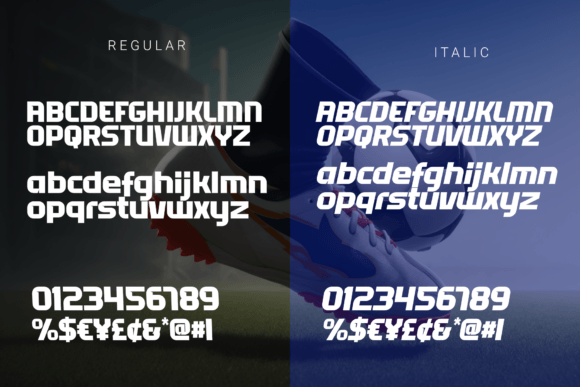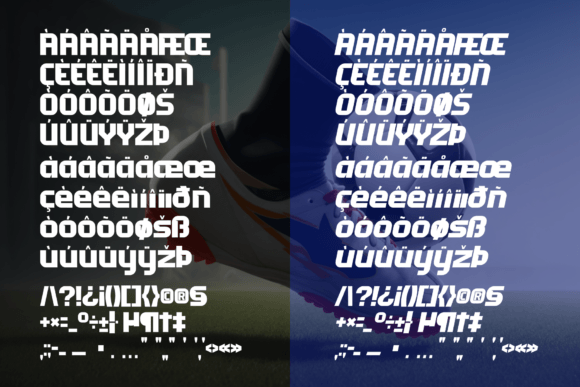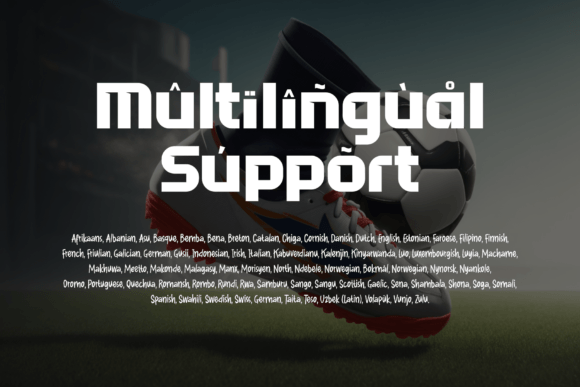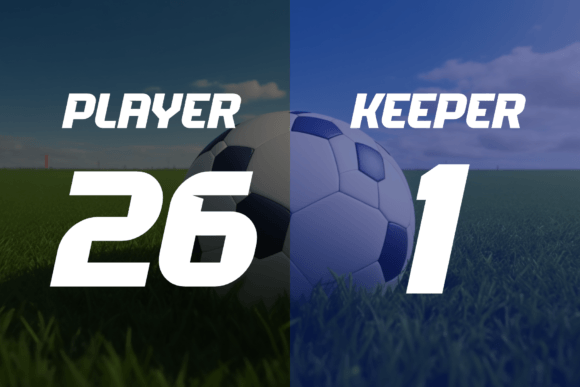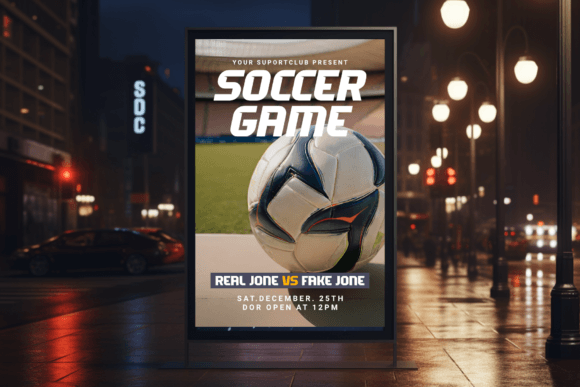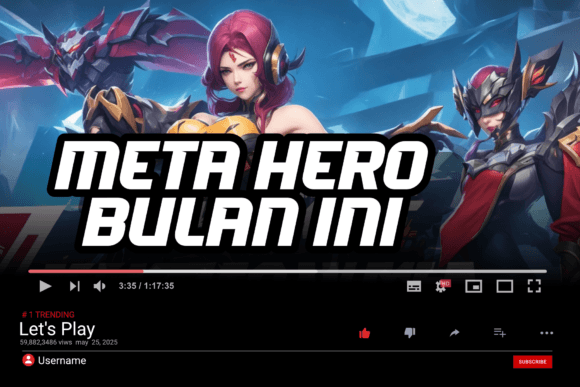
Unleash the Power of AMJ Industries Font: Elevate Your Sports Designs
In the world of design, fonts play a crucial role in conveying the message and tone of a project. When it comes to sports-related designs, a font that exudes energy, strength, and dynamism is essential. This is where AMJ Industries Font comes into play – a specifically designed font that embodies the spirit of competition and athleticism. In this article, we’ll dive into the features, benefits, and uses of AMJ Industries Font, and explore how it can elevate your sports design projects.
Introducing AMJ Industries Font
AMJ Industries Font is a modern, dynamic font designed to make a bold statement in the world of sports. Its strong characteristics, sharp lines, and aggressive typographic style make it an ideal choice for sports-related designs. The font features large standout letters and bold lines that signify strength and ruggedness, perfect for creating a powerful and captivating message in your designs.
Key Features of AMJ Industries Font
- Dynamic and Energetic: AMJ Industries Font is designed to create a dynamic and energetic impression, making it perfect for sports-related designs.
- Strong Characteristics: The font features strong characteristics, sharp lines, and a modern design that makes it stand out.
- Aggressive and Masculine: AMJ Industries Font has an aggressive and masculine typographic style, with large standout letters and bold lines that signify strength and ruggedness.
- Flexibility and Creativity: The font offers flexibility and creativity in its use, allowing you to bring a unique and distinctive touch to every sports design project.
Perfect for Sports-Related Projects
AMJ Industries Font is ideal for various sports-related projects, such as:
- Logos: Create a bold and memorable logo for your sports team or brand.
- Posters: Design eye-catching posters for sports events, tournaments, or promotions.
- Jerseys: Add a professional touch to your team’s jerseys with AMJ Industries Font.
- Promotional Materials: Use the font to create engaging promotional materials, such as flyers, brochures, or social media graphics.
Who Can Benefit from AMJ Industries Font?
AMJ Industries Font is suitable for a wide range of designers, crafters, and organizations, including:
- Sports Teams: Create a strong brand identity with AMJ Industries Font.
- Sports Equipment Brands: Use the font to design bold and attention-grabbing packaging and marketing materials.
- Major Sports Events: Add a professional touch to your event branding with AMJ Industries Font.
- Designers and Crafters: Expand your design portfolio with AMJ Industries Font and create stunning sports-related designs.
Tips and Tricks for Using AMJ Industries Font
To get the most out of AMJ Industries Font, follow these tips:
- Experiment with Colors: Pair the font with bold and vibrant colors to create a dynamic design.
- Play with Typography: Use different font sizes, styles, and combinations to add visual interest.
- Add Texture and Patterns: Incorporate textures and patterns to give your design a unique touch.
AMJ Industries Font is a powerful tool for designers and crafters looking to create stunning sports-related designs. With its dynamic and energetic impression, strong characteristics, and aggressive typographic style, this font is perfect for sports teams, sports equipment brands, and major sports events. By incorporating AMJ Industries Font into your design projects, you’ll be able to convey a powerful and captivating message that emphasizes the spirit of competition and athleticism.